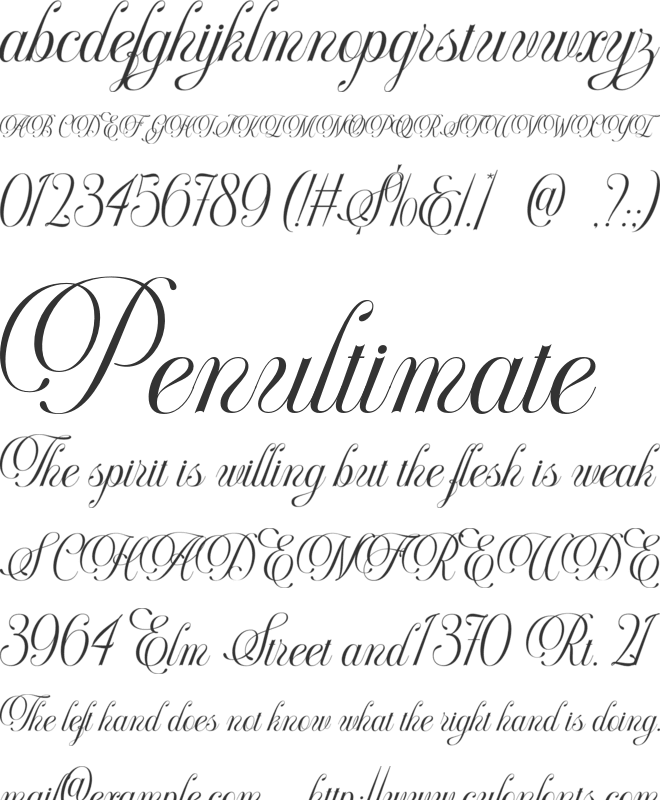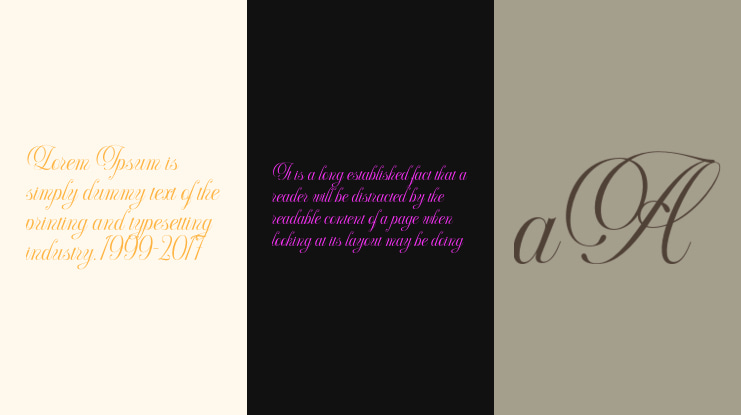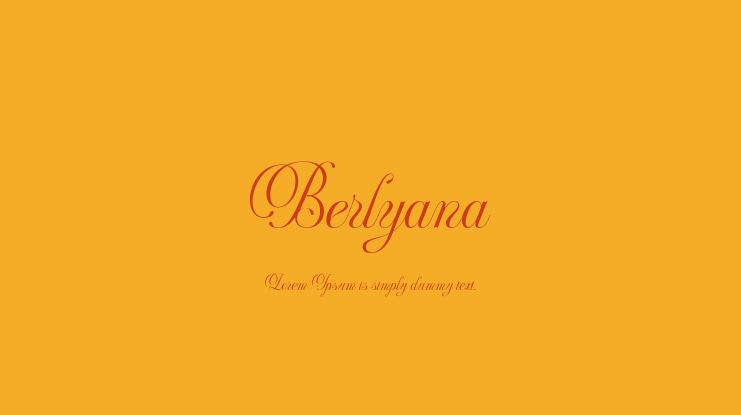
Berlyana Font Family
Introducing Berlyana Sensual, a whisper of romance and elegance from script and serif. This duo font combines the elegance of script with sense of love and the timeless classic serif with nostalgia touch. Include the alternates that stir sensuality, love, glamour and romance. With multilingual support (european basic support) makes this font ideal for global branding.